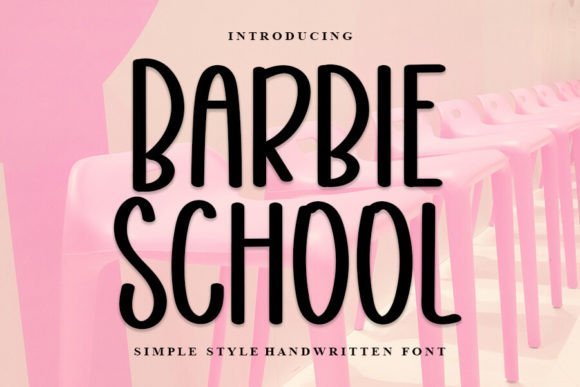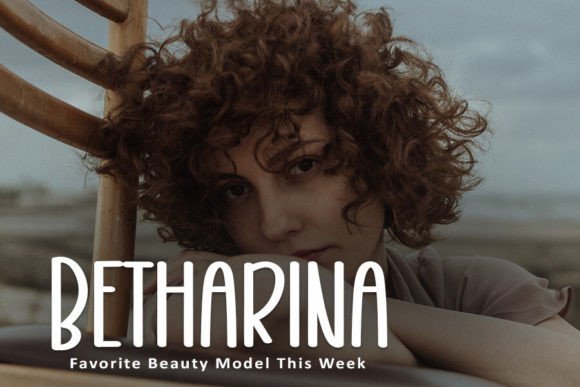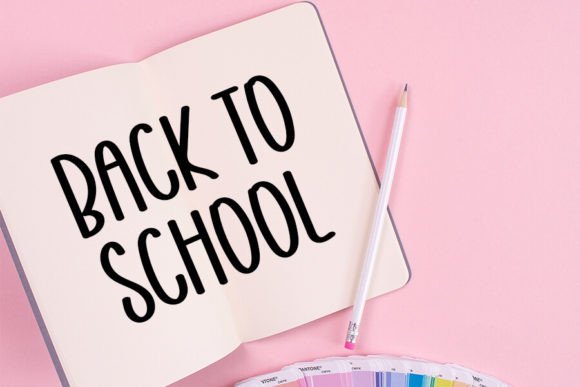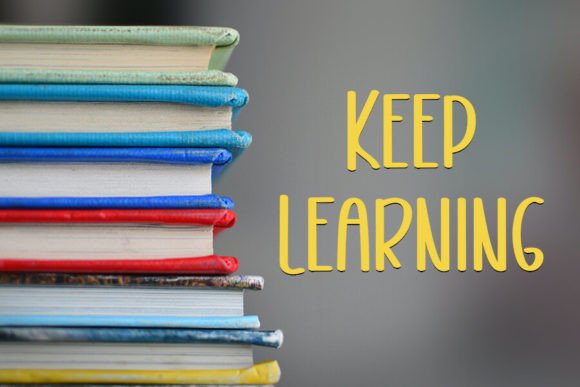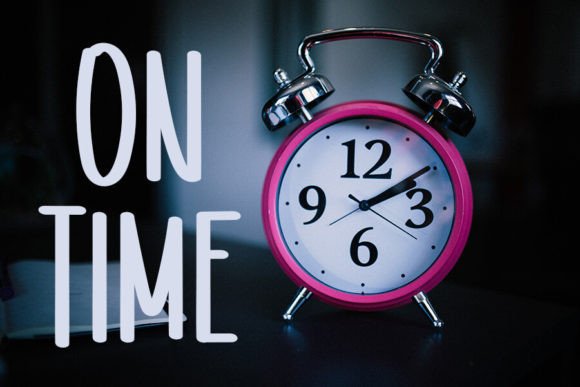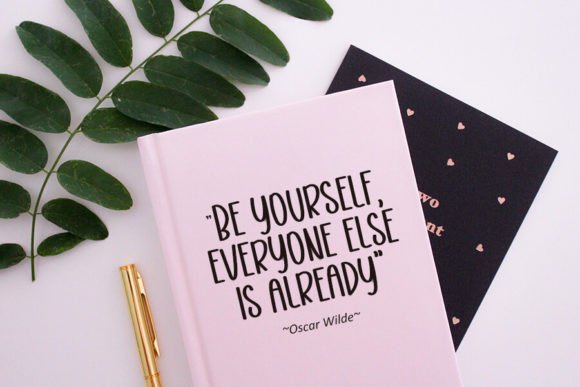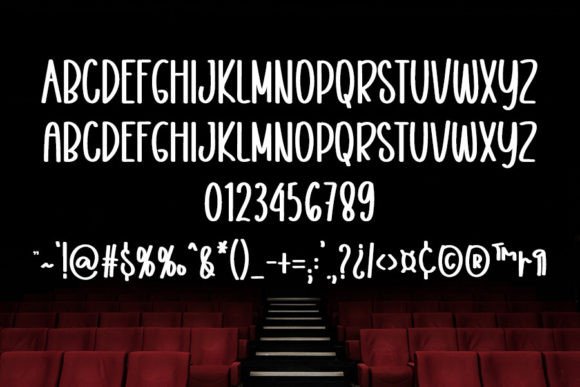
Bring Your Projects to Life with the Barbie School Font
As a designer, there’s nothing quite like the thrill of brainstorming a new idea. It’s that moment when everything falls into place, and you can envision your project taking shape. The blank page stares back at you, waiting to be transformed into something beautiful. That’s where the Barbie School Font comes in – a stylish handwritten font that adds a touch of elegance to your work.
With its contemporary atmosphere and impeccable form, inspired by timeless classic calligraphy, this font is a must-have for any designer looking to elevate their projects. Its balanced and varied design makes it perfect for enhancing the beauty of your work. Whether you’re creating a logo, a brochure, or a website, the Barbie School Font will help you bring your vision to life.
Key Features of Barbie School Font
- Font Family: The Barbie School Font is a custom-designed font family with 6 different font styles, each with its own unique characteristics.
- Unique Characteristics: The font features a playful, childlike design with bold lines, rounded edges, and vibrant colors, making it perfect for educational materials, children’s books, and other related projects.
- Character Set: The font includes a comprehensive character set, including uppercase and lowercase letters, numbers, punctuation marks, and special characters, ensuring that you have everything you need to create engaging content.
Designer Review: Barbie School Font
At first glance, the Barbie School Font seems like a whimsical, playful addition to any design project. ✨ Its rounded edges and childlike charm evoke a sense of nostalgia and innocence. However, as I dug deeper, I discovered some limitations that might make it less than ideal for certain projects.
- ✨ Great for children’s educational materials, packaging, or marketing campaigns
- ✨ Easy to read and recognize at a distance
- ✨ Can be paired with bright, bold colors to create a visually appealing contrast
- ⚠️ May be too childish for professional or formal designs
- ⚠️ Can be overwhelming when used in large quantities or as a primary font
- ⚠️ Limited versatility in terms of font sizes and styles
Overall, I think the Barbie School Font is a fun, creative addition to a designer’s toolkit. While it may not be suitable for every project, it can be a great choice for those looking to add a touch of whimsy and playfulness to their designs.
Tips for Getting the Most Out of the Barbie School Font
Use the Barbie School Font to create whimsical and playful designs, especially for children’s projects or educational materials. You can also use it to add a touch of nostalgia and retro charm to your designs. Experiment with different font sizes and colors to achieve the desired effect.
The Barbie School Font is ideal for:
– Children’s party invitations and decorations
– Educational materials and worksheets
– Retro-themed designs and graphics
– Whimsical and playful branding and marketing materials